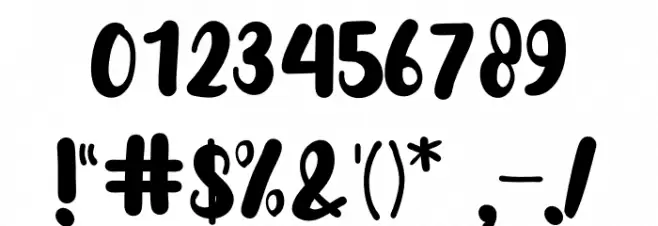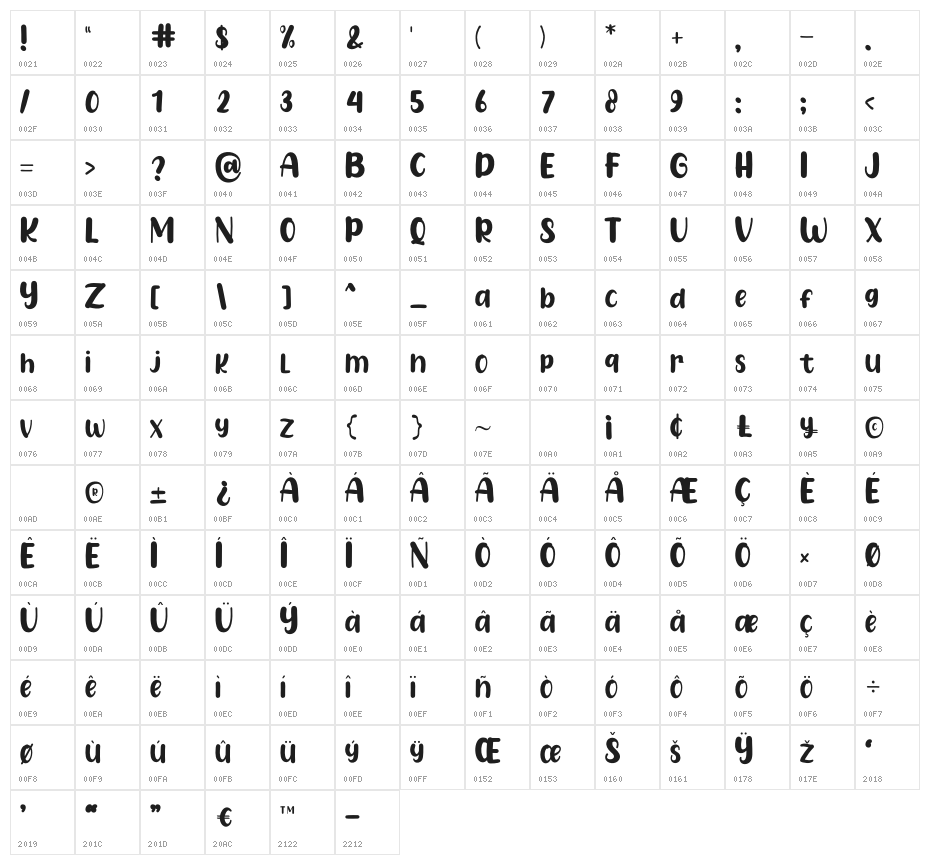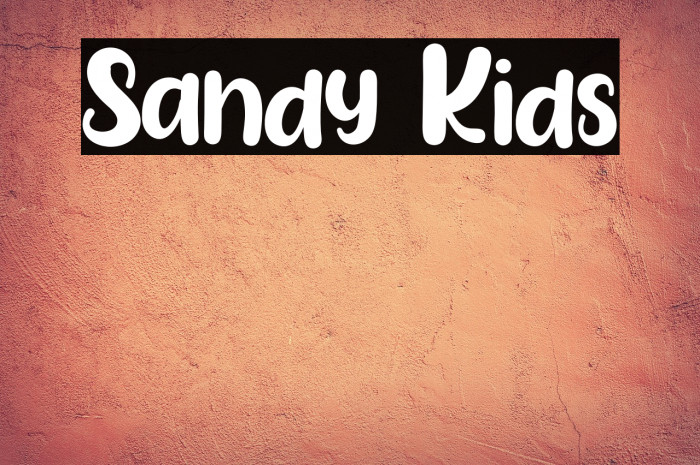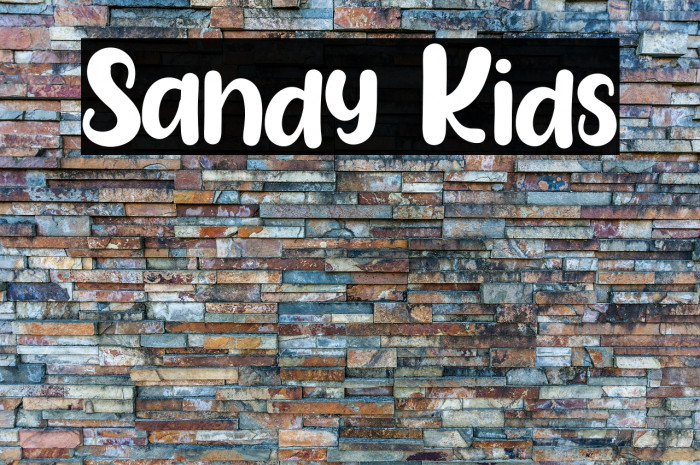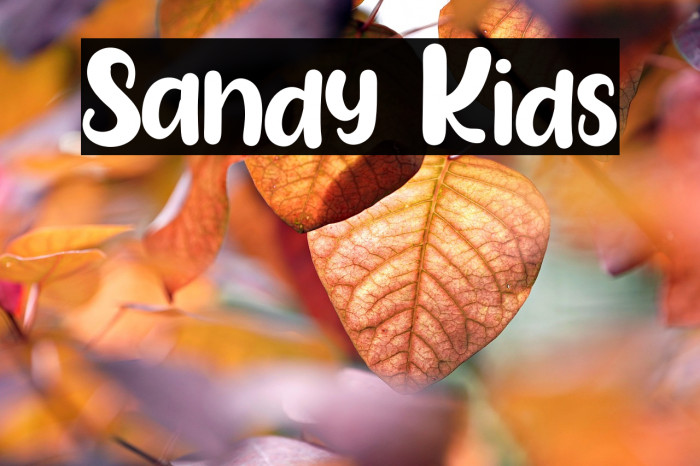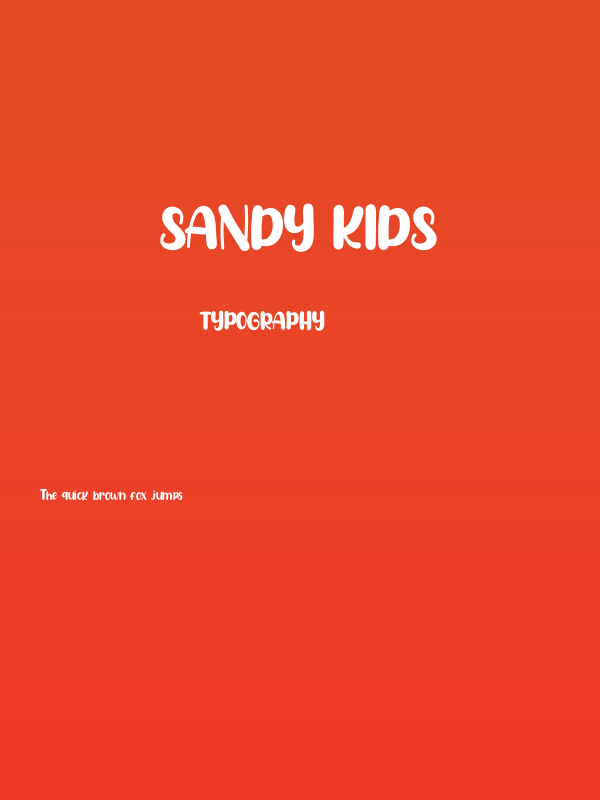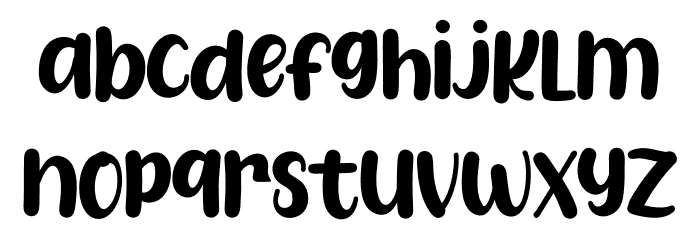
Sandy Kids Font
Sandy Kids Description
This playful and whimsical font features bold, rounded characters with a hand-drawn aesthetic. The letters have a consistent thickness, giving them a uniform appearance that is both approachable and friendly. The uppercase and lowercase letters maintain a cohesive style, with slight variations that add to the charm. The numerals and special characters are designed to match the overall playful theme, making them suitable for a variety of creative applications. The font's style is reminiscent of children's handwriting, making it ideal for projects aimed at a younger audience or for those seeking a fun and informal look.
| Proposed Projects | Ideal for children's books, playful branding, party invitations, and educational materials. |